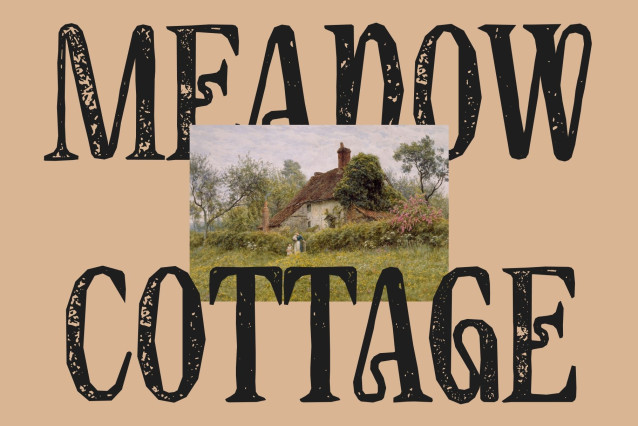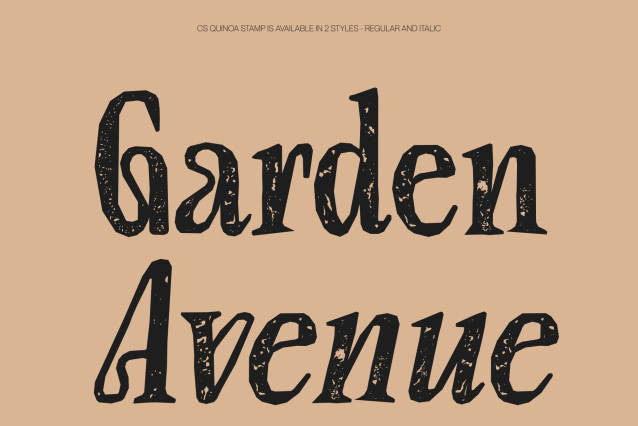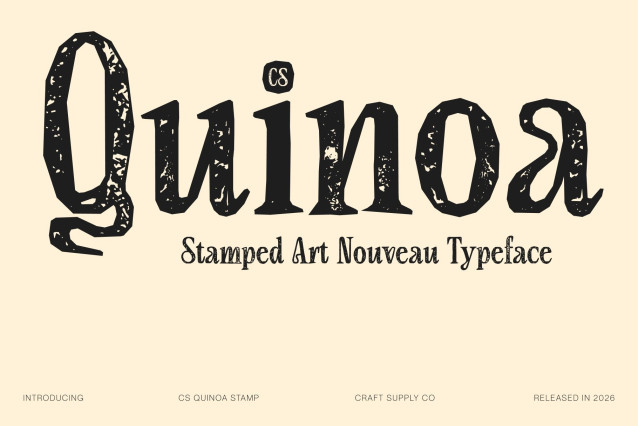
CS Quinoa Stamp – Art Nouveau Serif Font: Where Elegant Beauty Meets Vintage Expression
Graceful Art Nouveau Curves with Refined Elegance
This is a modern serif font inspired by the flowing beauty of Art Nouveau design. Its elegant curves, refined proportions, and decorative serif details create a sophisticated visual rhythm filled with charm, artistry, and timeless beauty. Every character feels graceful and expressive, making the font perfect for designs that seek a luxurious and artistic atmosphere.
Contemporary Sophistication with Decorative Flair
Blending modern serif structure with the organic elegance of Art Nouveau aesthetics, this font delivers a typographic style that feels stylish, feminine, and visually captivating. The balanced forms preserve readability while maintaining a decorative and high-end personality suitable for premium creative projects.